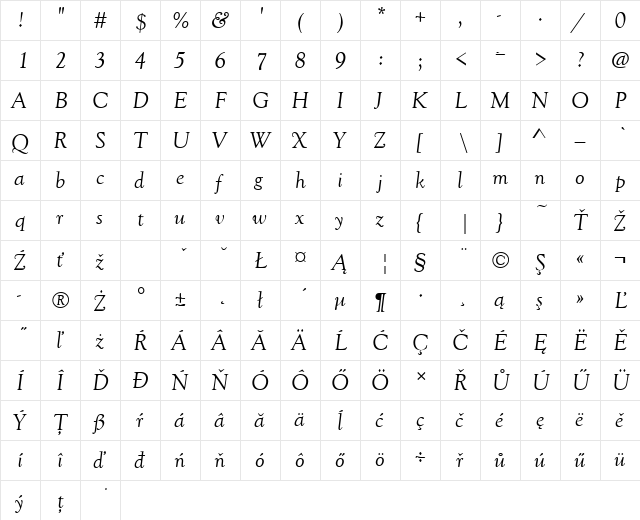
GoudyOldStyTEE Italic Font Preview
GoudyOldStyTEE Italic
Design Context for GoudyOldStyTEE Typeface
GoudyOldStyTEE offers clean, dependable letterforms without strong stylistic allegiance, making it a practical choice for designers who need flexibility. The dynamic lean of this cut emphasises speed and emphasis in any layout.